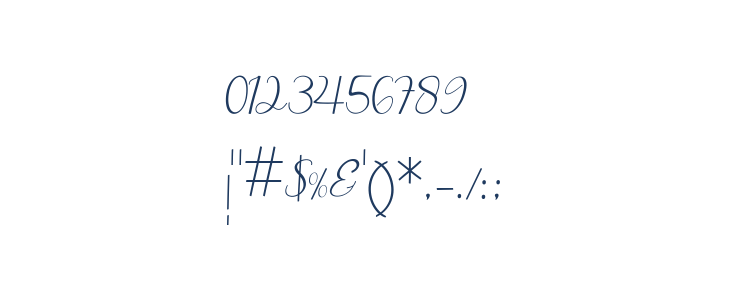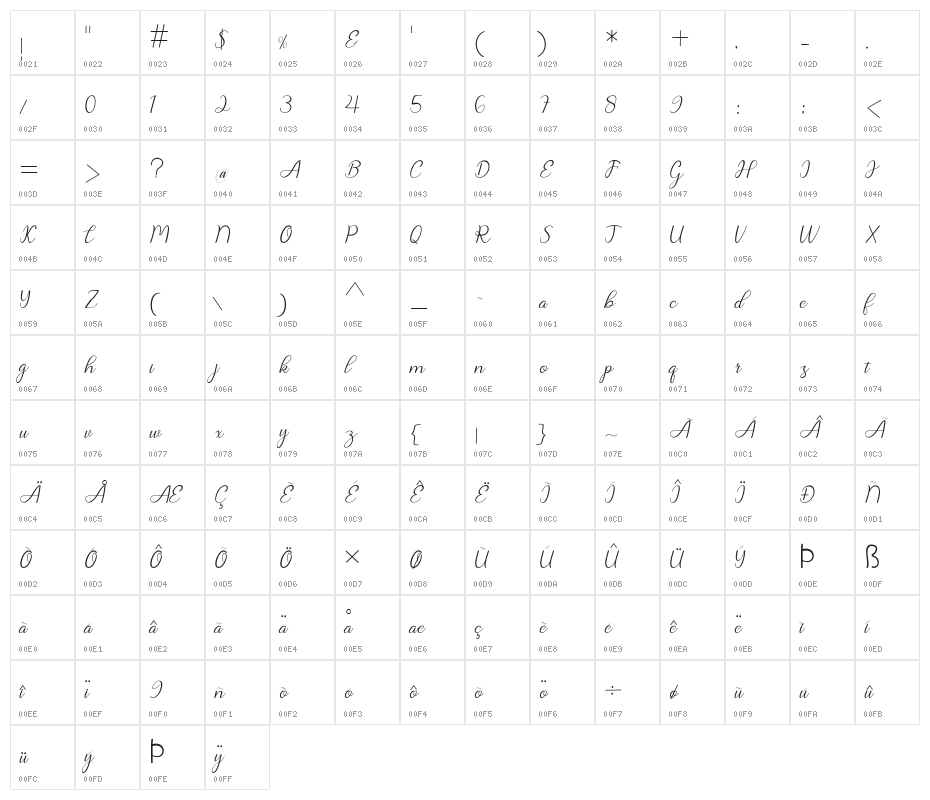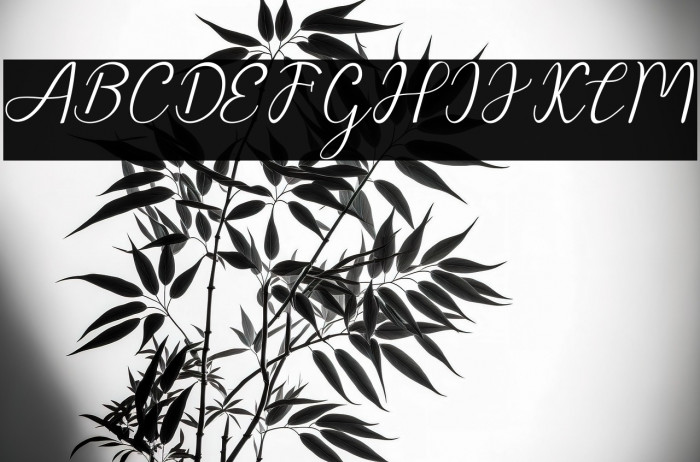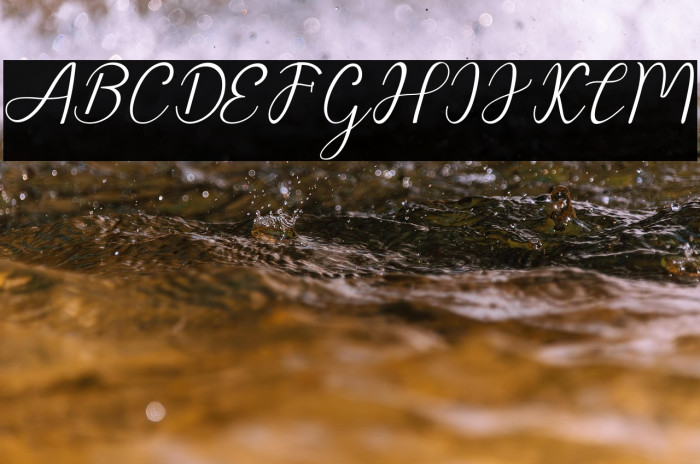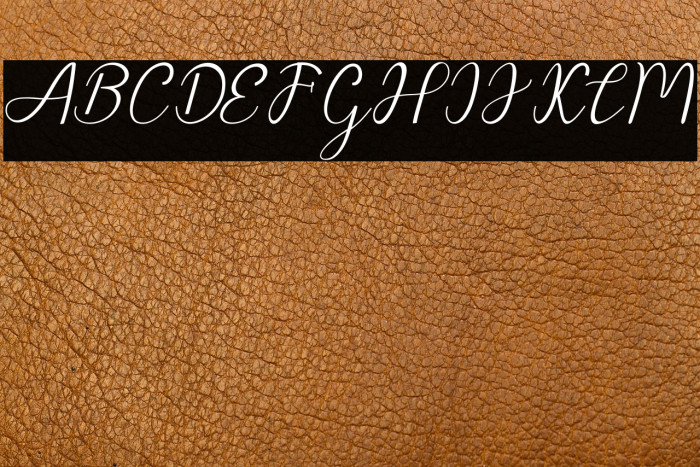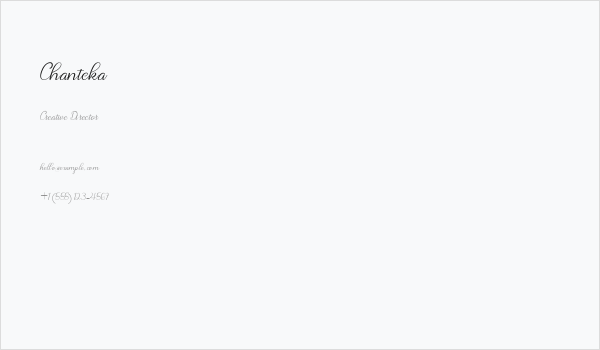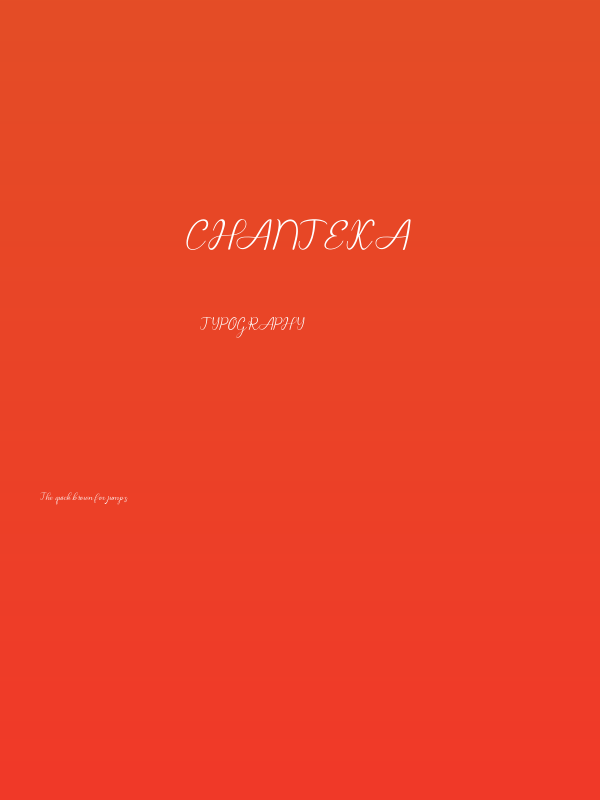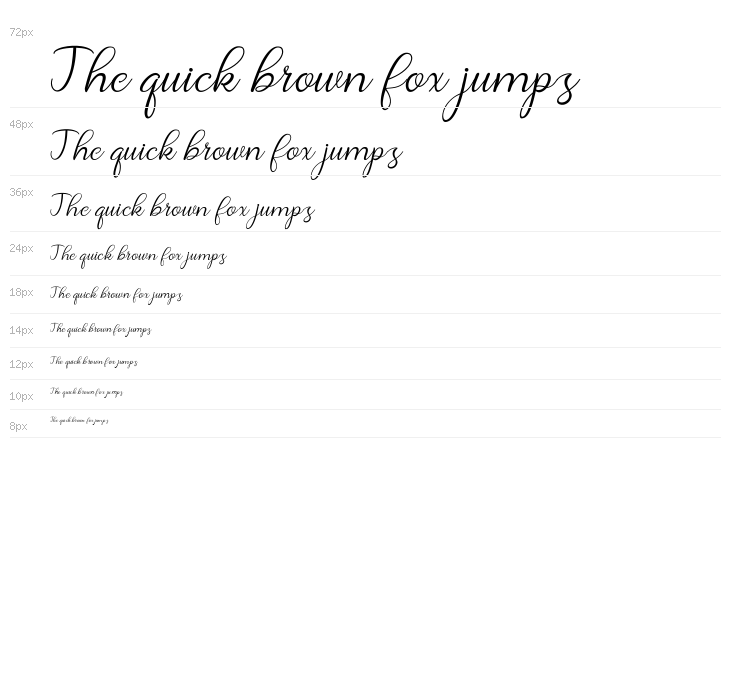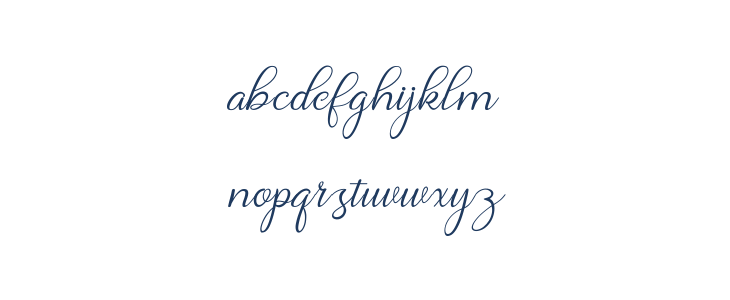
Chanteka Font
Chanteka Description
This elegant script font features flowing, cursive letterforms that exude sophistication and grace. The uppercase letters are characterized by their sweeping curves and delicate loops, while the lowercase letters maintain a consistent fluidity that enhances readability. The numerals are stylishly integrated, maintaining the overall aesthetic of the font. Special characters are thoughtfully designed to complement the script style, making it versatile for various applications. The font's refined appearance makes it suitable for formal invitations, branding, and decorative purposes.
| Overall Style | Elegant, Decorative |
| Use Case | Headlines, Invitations, Branding |
| Proposed Projects | Ideal for wedding invitations, elegant branding, greeting cards, and decorative signage. |